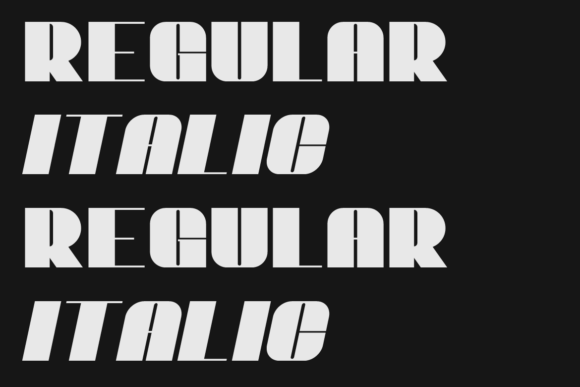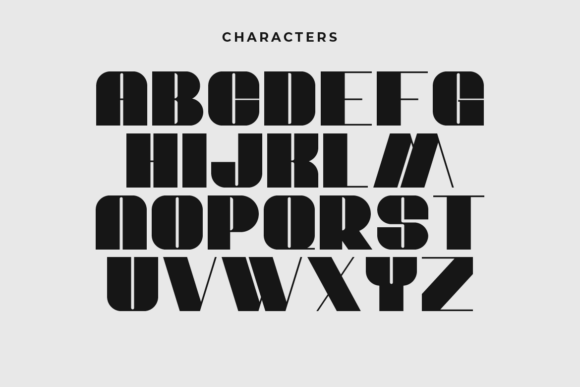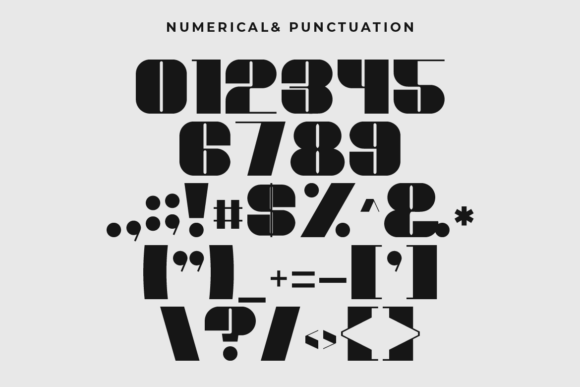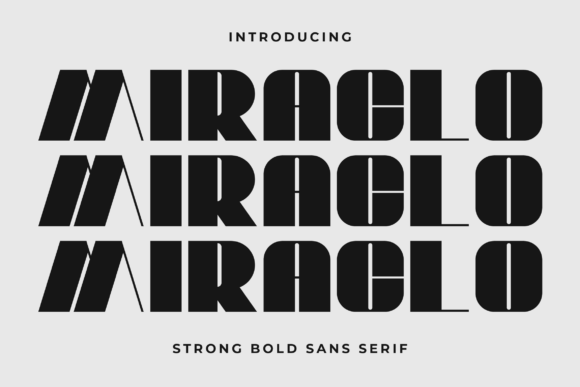
Introduction to Miraclo Font
Miraclo is a refined sans display font designed to combine modern minimalism with timeless sophistication.
Featuring clean lines, smooth curves, and perfectly balanced proportions, Miraclo delivers clarity and elegance for any design project .
Key Features of Miraclo Font
Why Choose Miraclo Font?